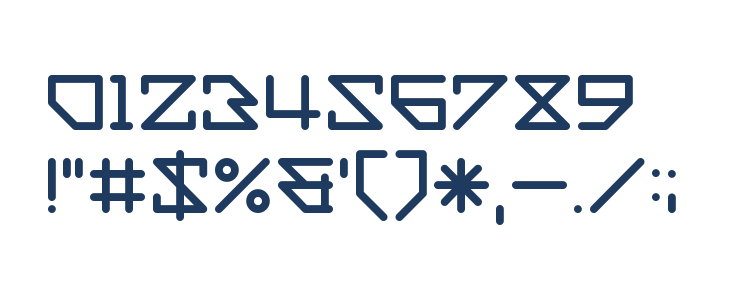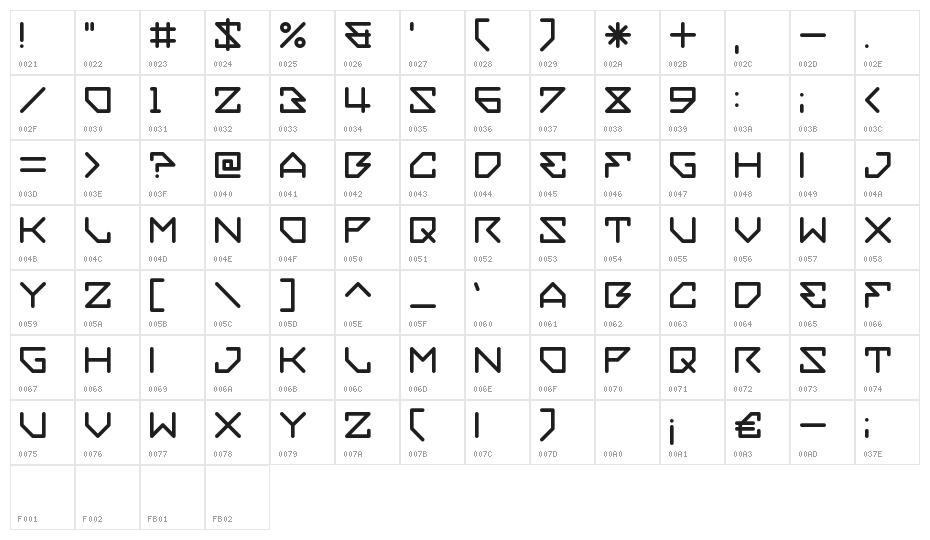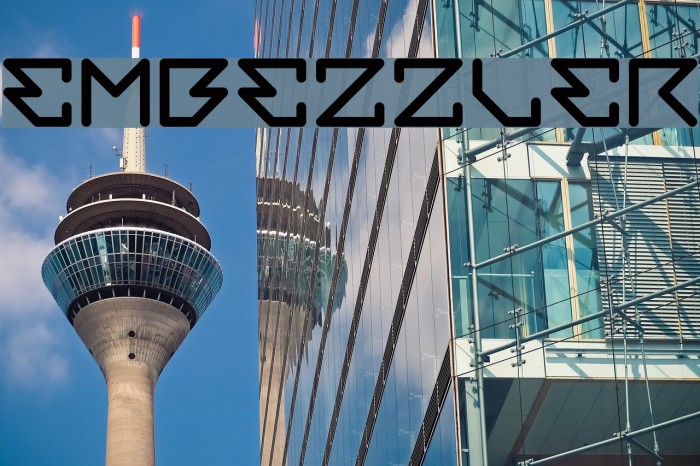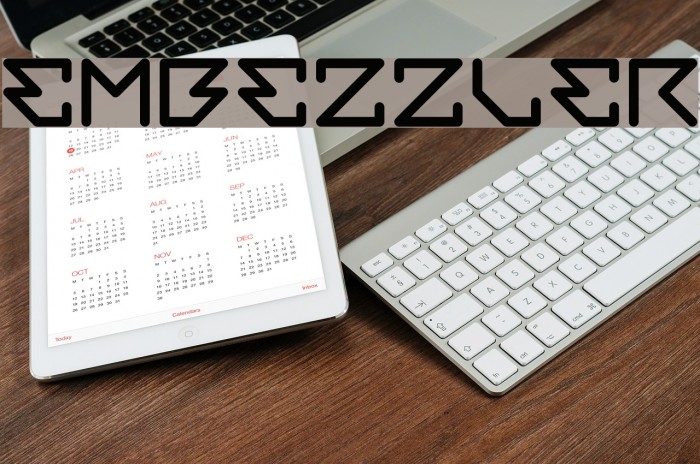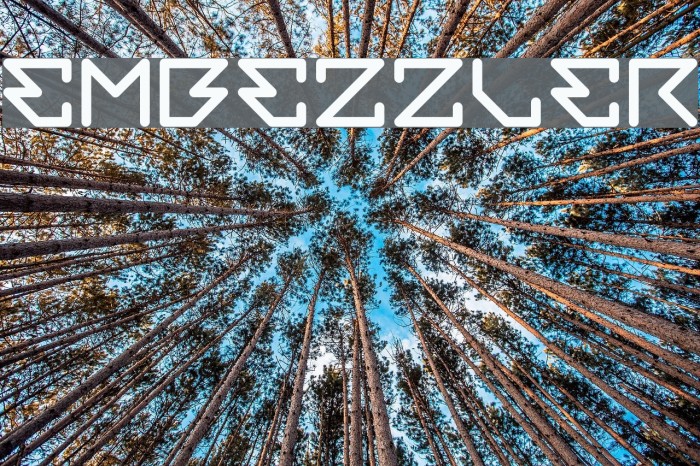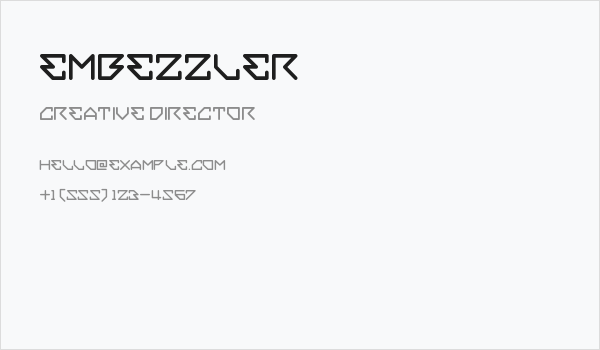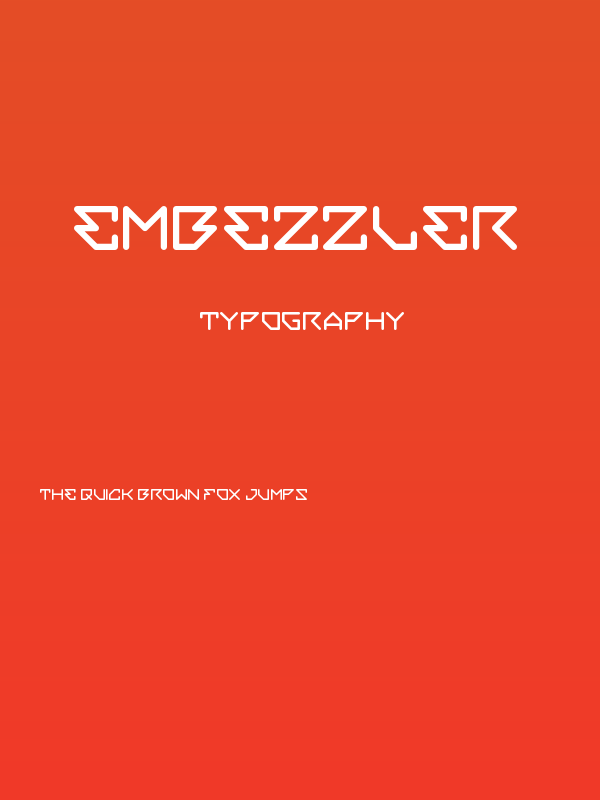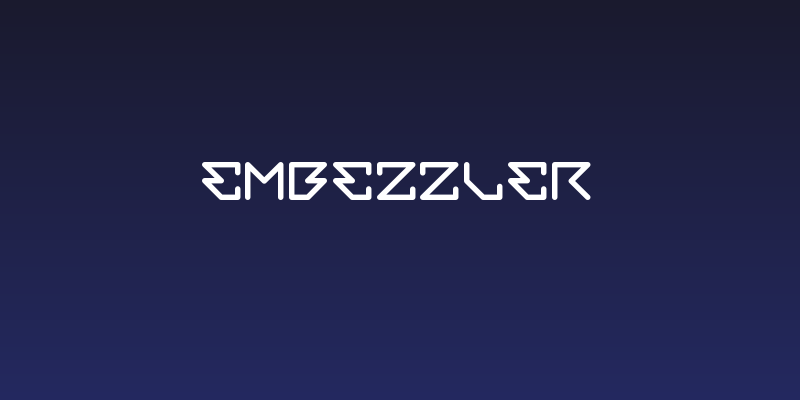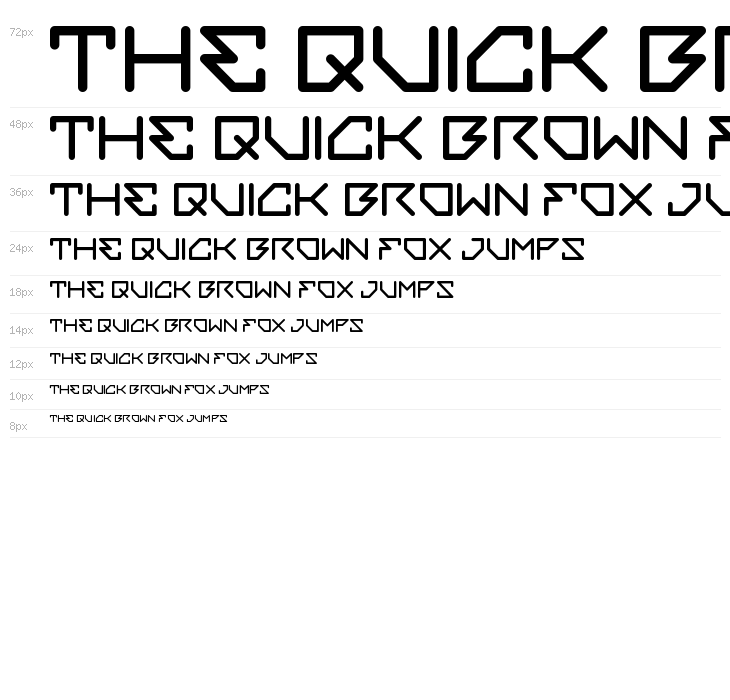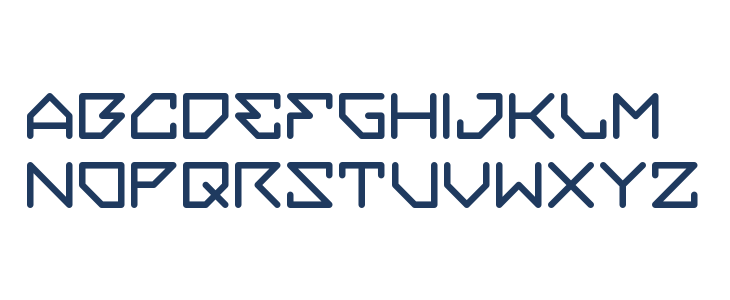
Embezzler Font
Embezzler Description
This font features a modern, geometric design with a futuristic flair. Each character is composed of bold, angular lines that create a sense of precision and structure. The letters have a uniform height and width, contributing to a cohesive and balanced appearance. The font's unique style is characterized by its sharp corners and straight edges, giving it a distinctive, tech-inspired look. The numerals and special characters maintain the same geometric aesthetic, ensuring consistency across all elements. This font is ideal for projects that require a contemporary and innovative touch.
| Use Case | Logos, Headlines, Posters |
| Proposed Projects | Ideal for technology branding, sci-fi themed designs, video game interfaces, and modern advertising. |